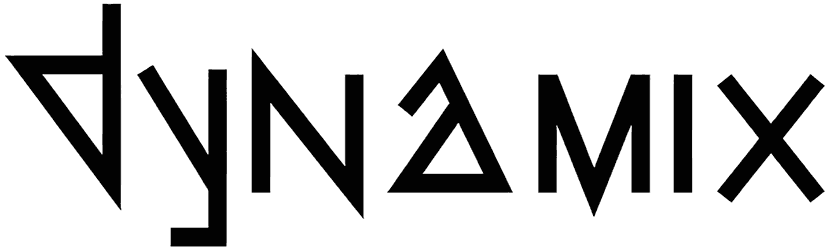
Dynamix Font
Drive people’s attention to your unique design via a geometric, kind of weird, triangular font, Dynamix. It provides a simple but futuristic touch and comes with an almost lowercase! It doesn’t include numbers, uppercase…
Drive people’s attention to your unique design via a geometric, kind of weird, triangular font, Dynamix. It provides a simple but futuristic touch and comes with an almost lowercase! It doesn’t include numbers, uppercase, or punctuation. This font is creative enough for use in the logotype, T-shirt print, comic books cover, games, and digital concepts.